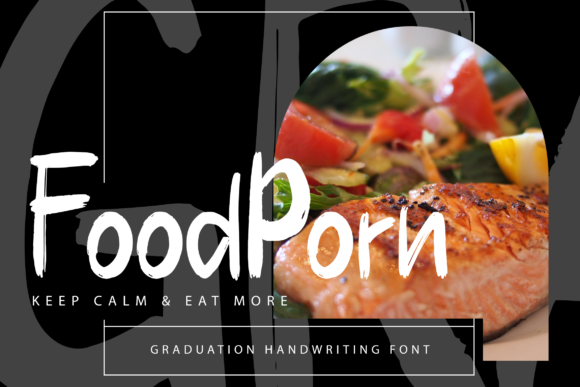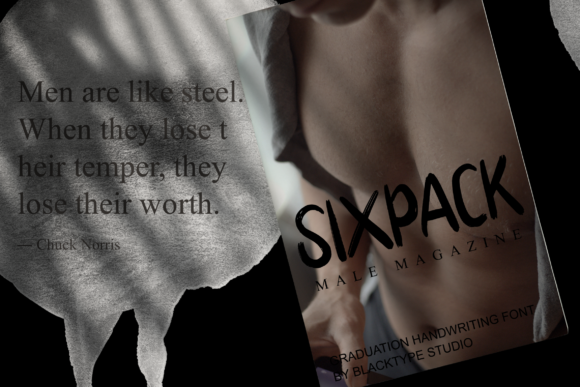
Graduation Font
db-ku.com - Script & Handwritten -- Graduation is a charming handwritten font that gives off cheerful and cozy vibes. It is perfect for a wide range of crafty ideas that need to stand out!